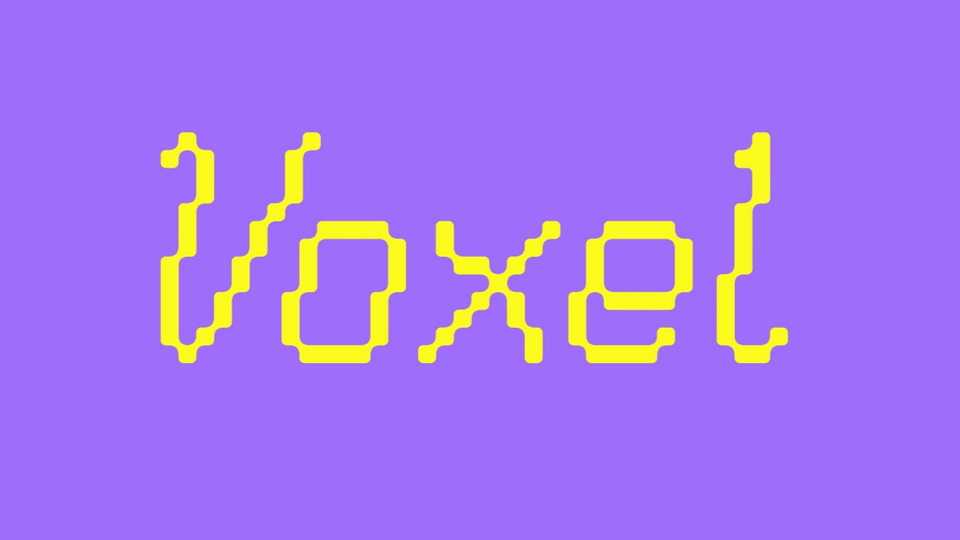
Download Voxel font, a display typeface rooted from a linear grid-system, inspired by the old computers fonts in the 80s. Voxel has a special characteristic which is the smoothened edges to add the futuristic and modern element.
Designer: FINE / GREAT STUDIO